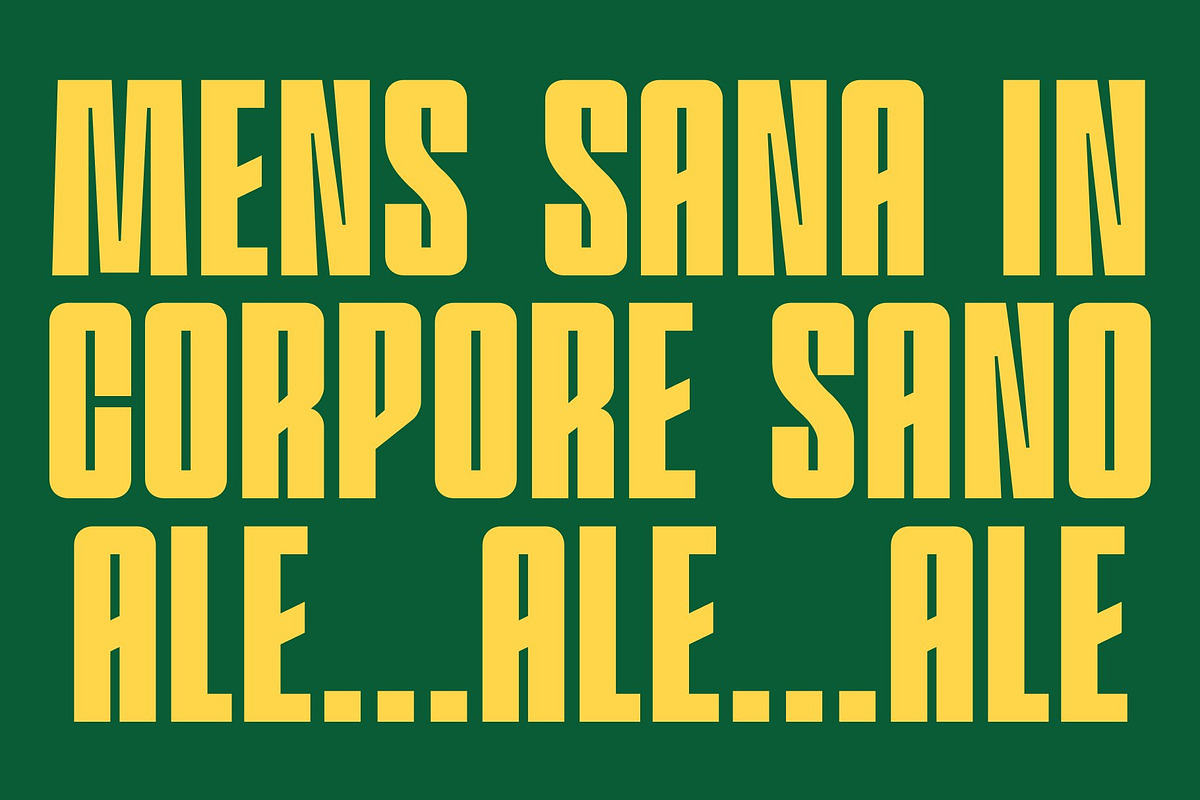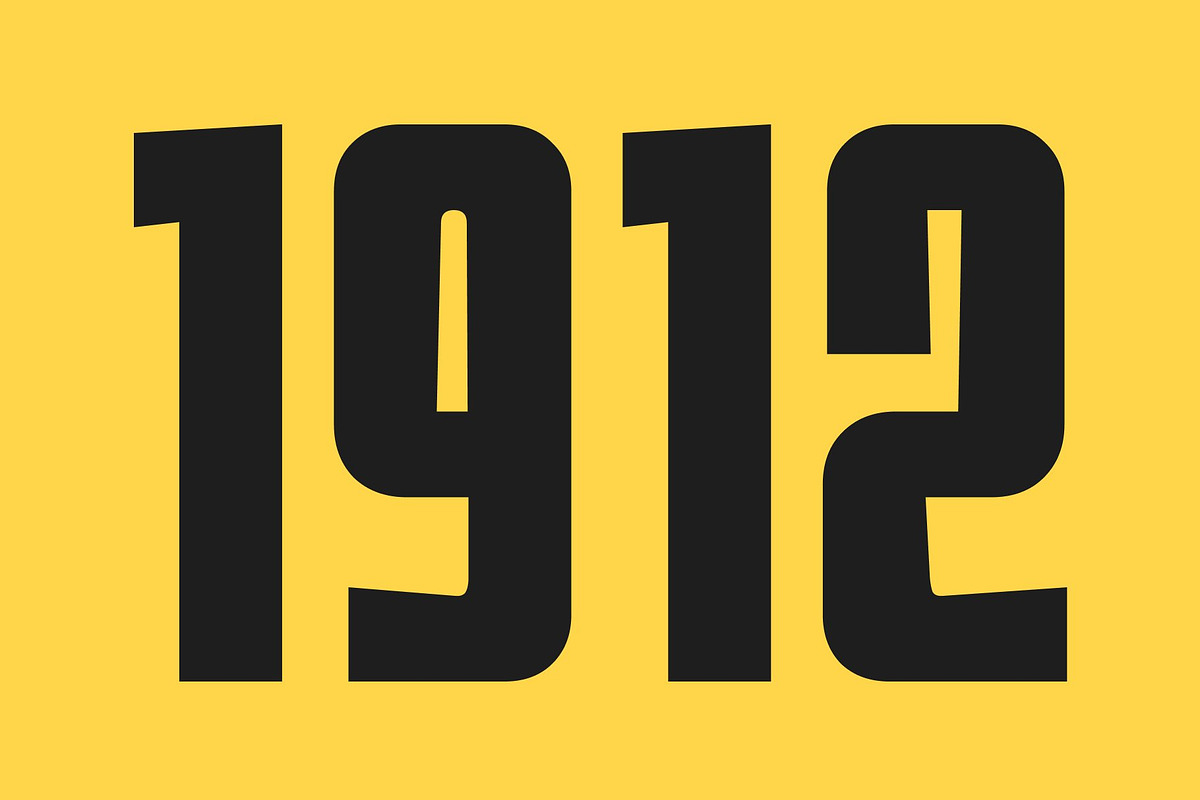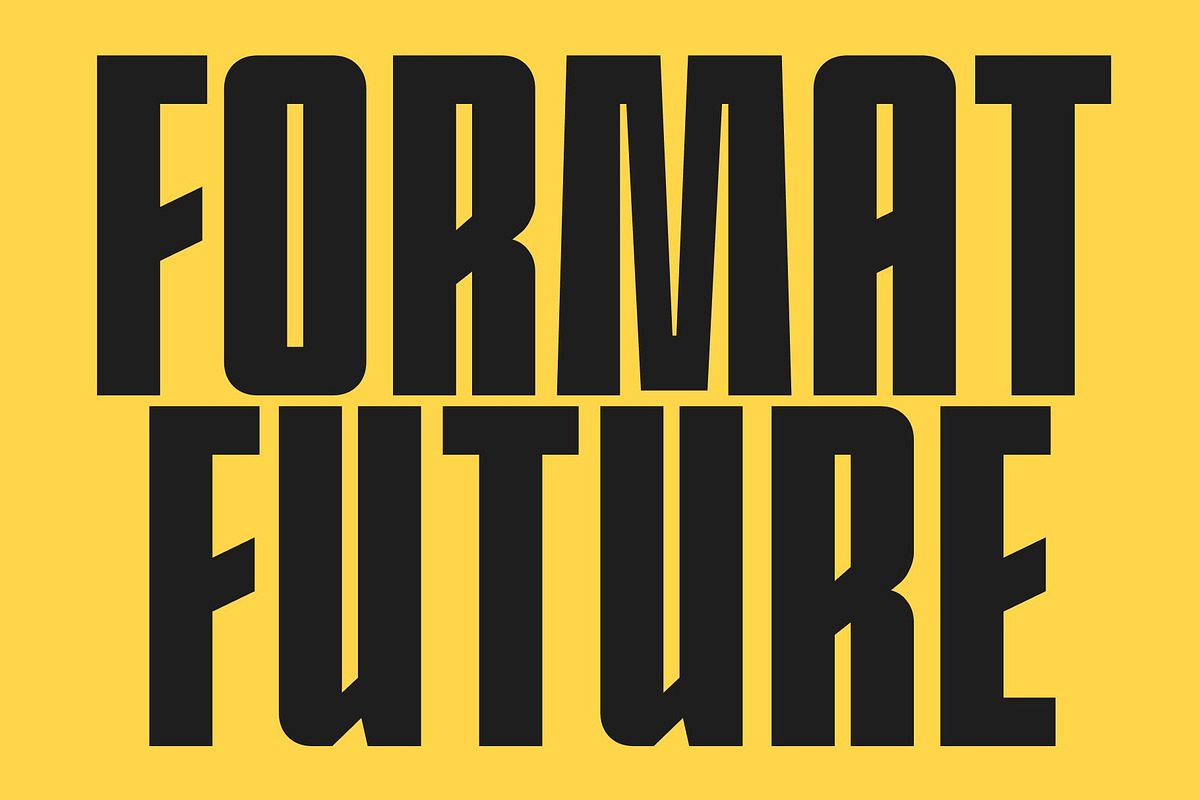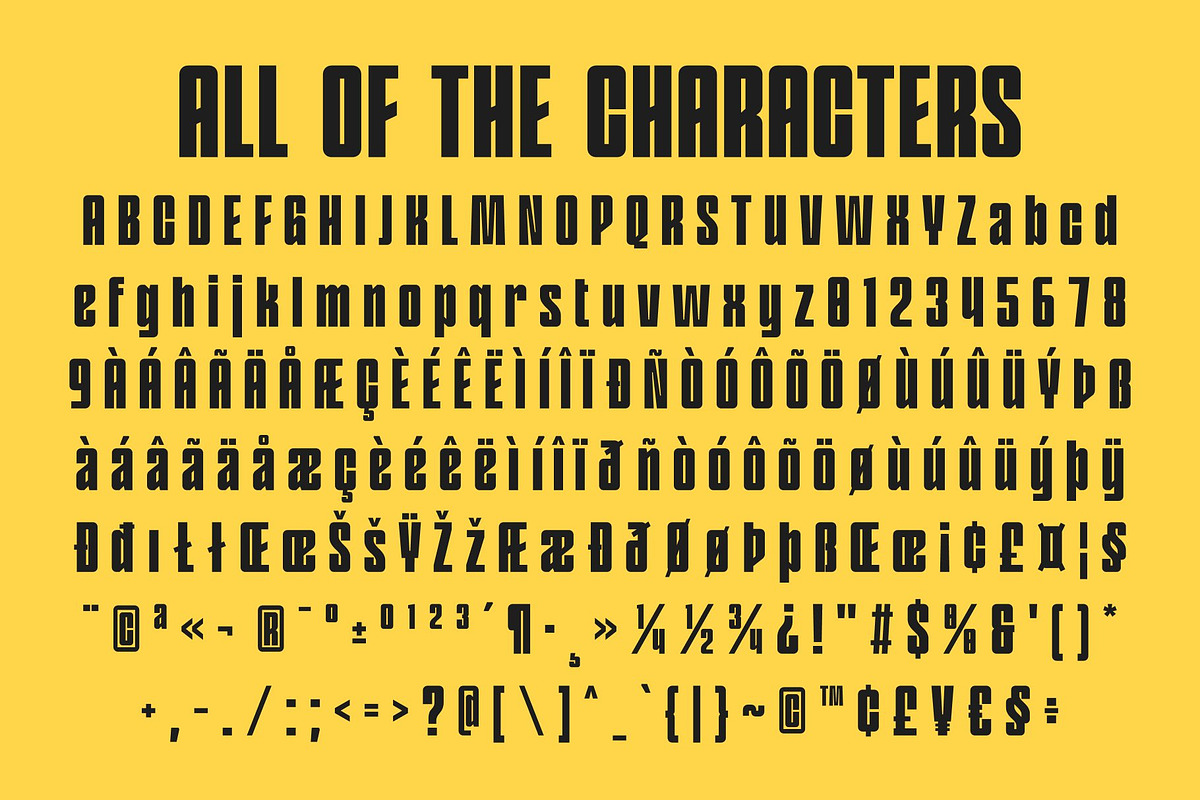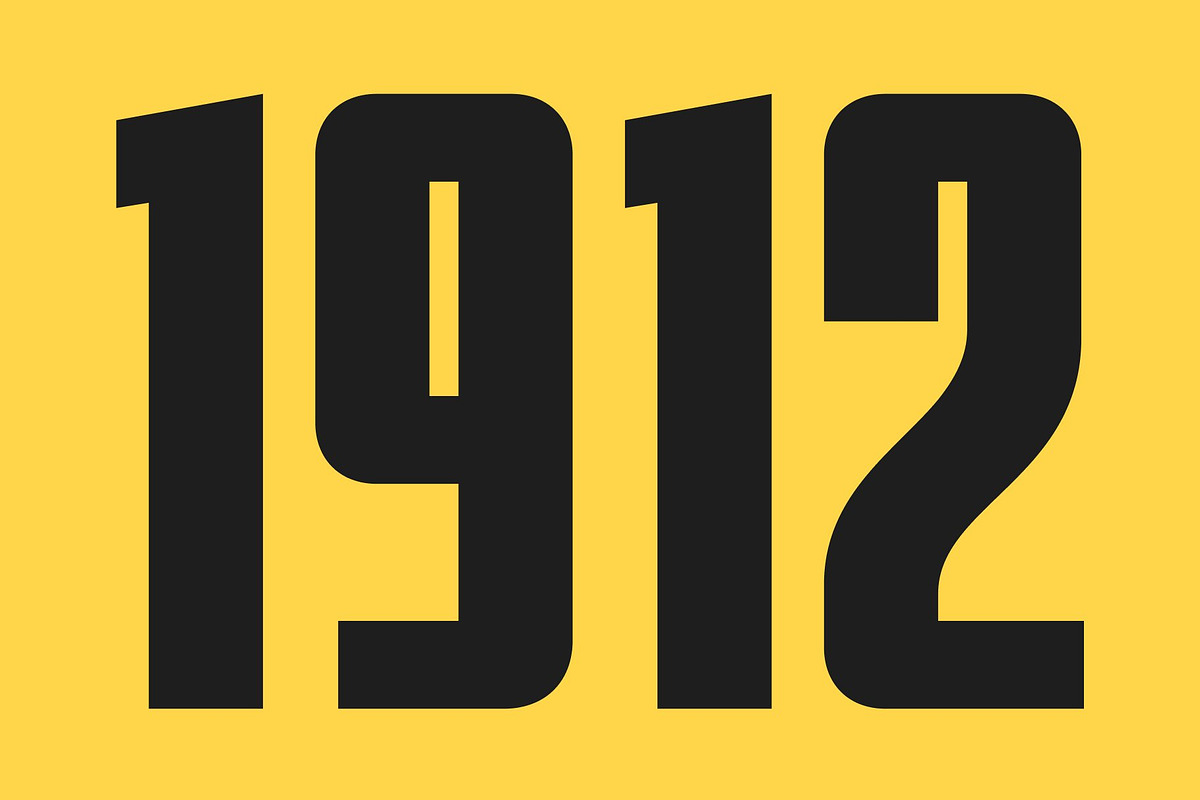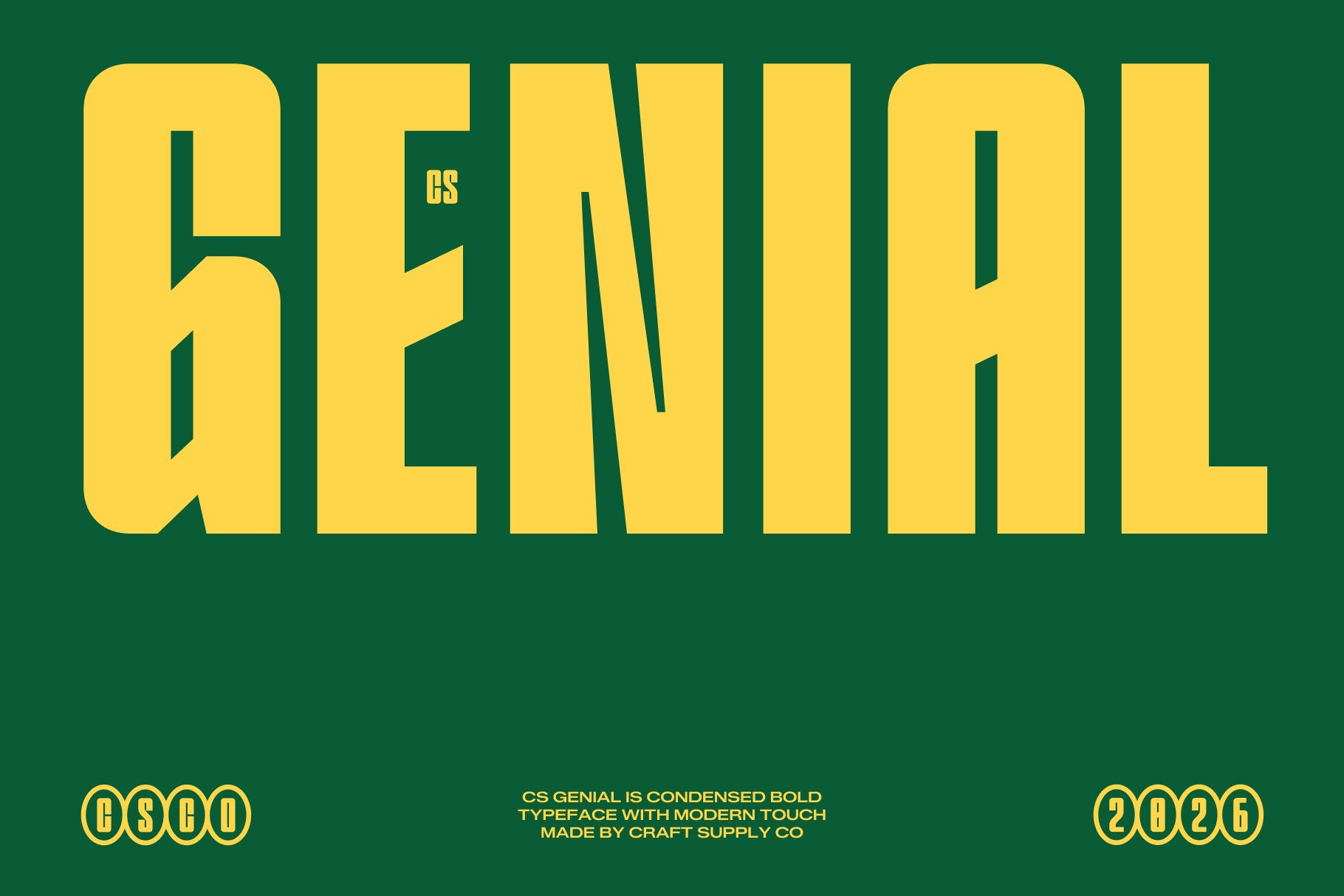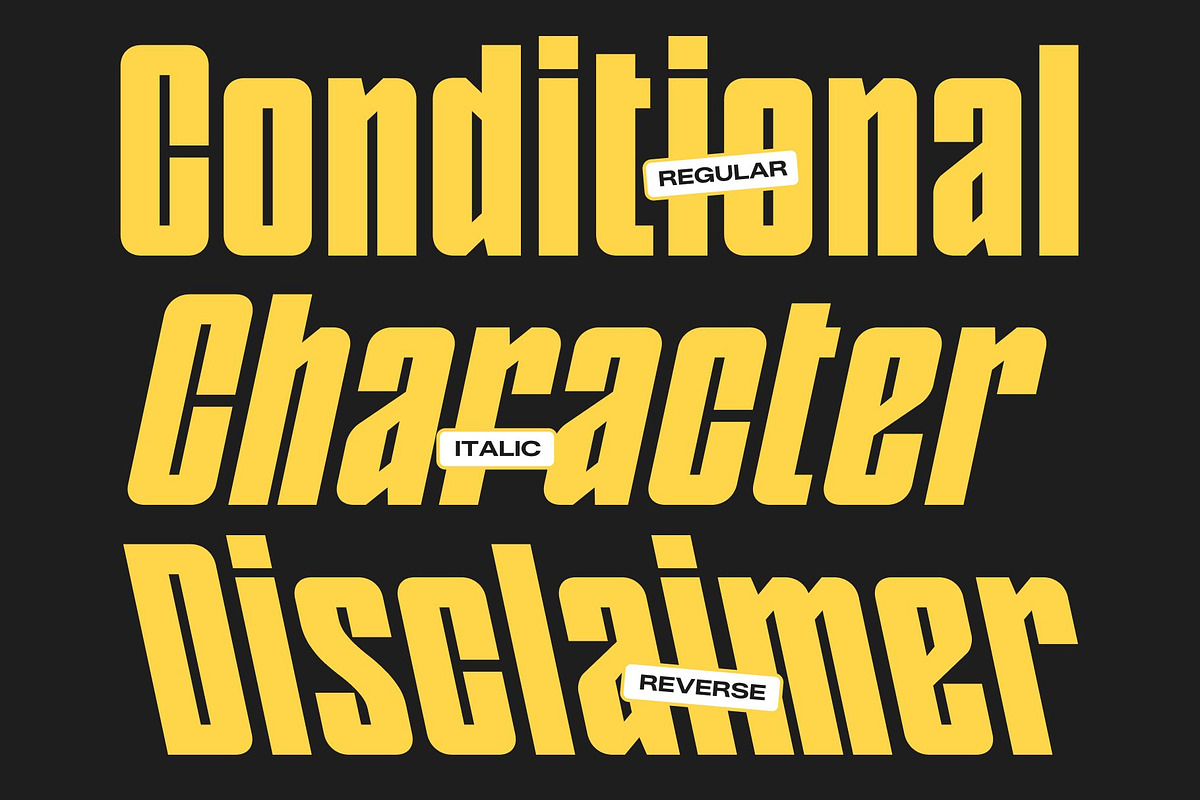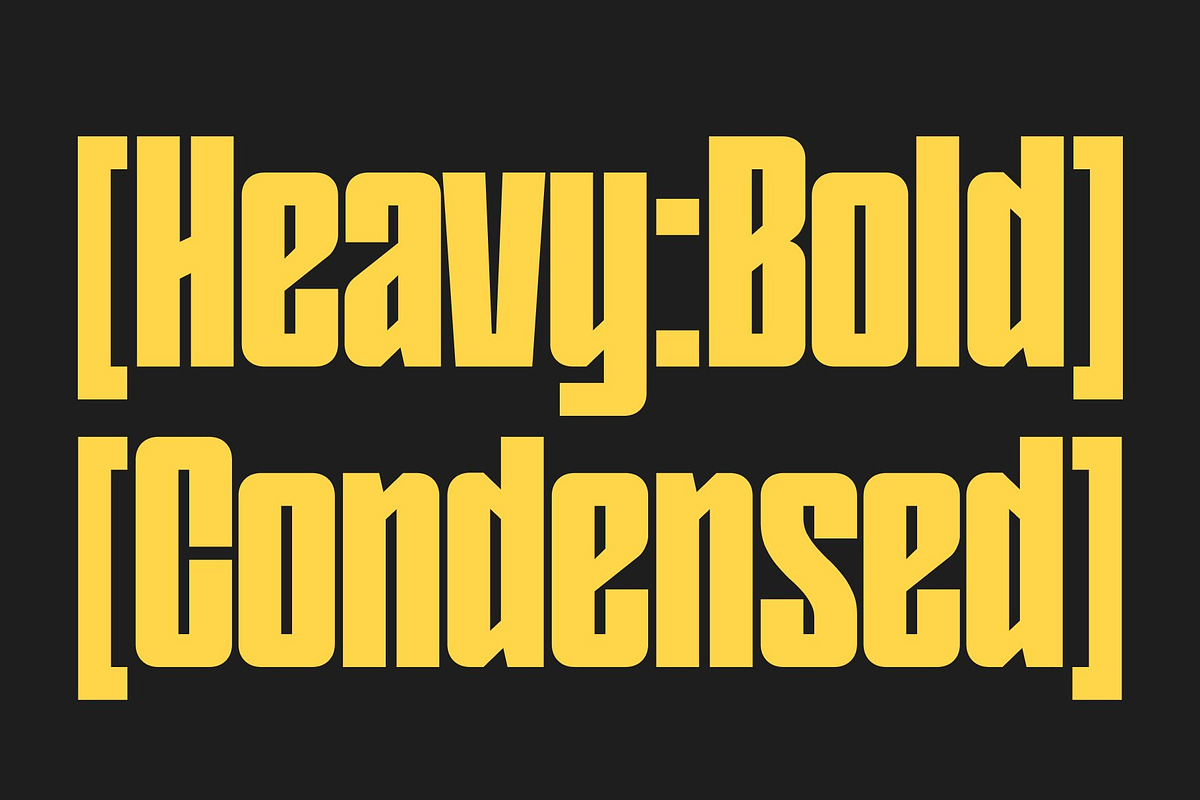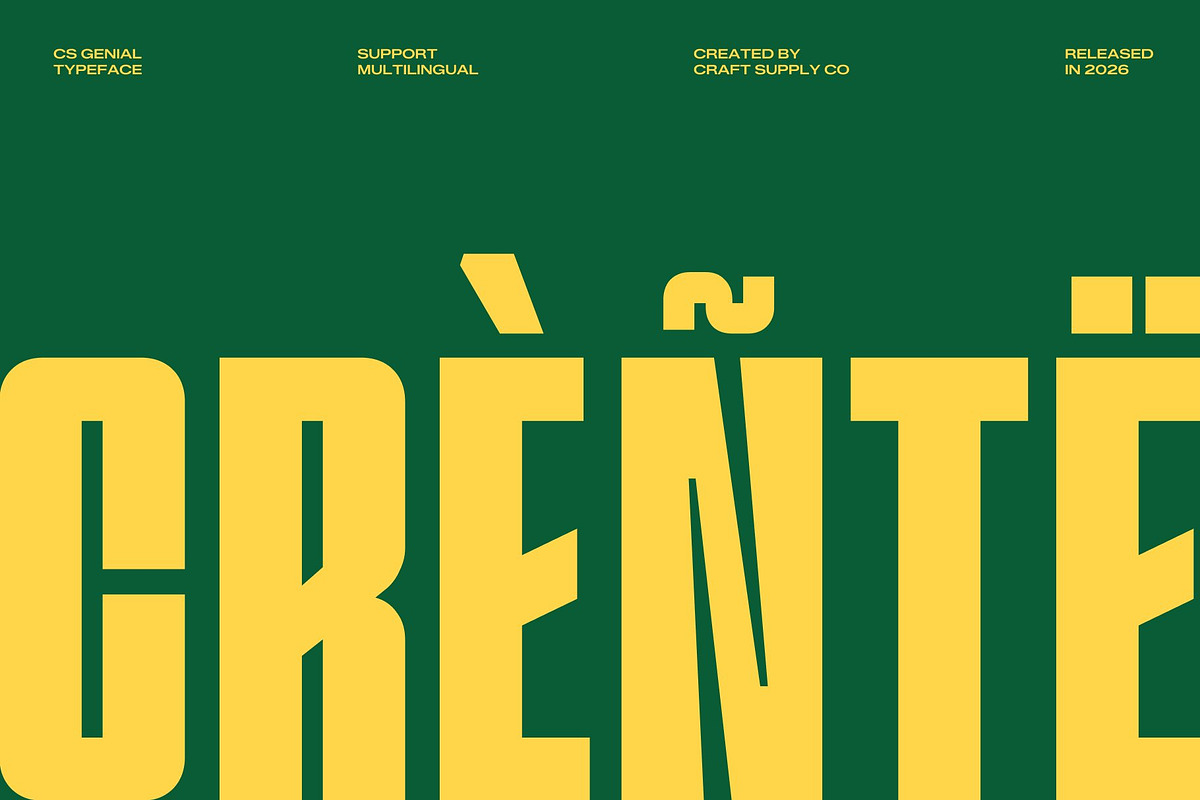
CS Genial – Condensed Font
CS Genial – Modern Condensed Display Font with Bold Presence
Modern Condensed Display Font with Strong Visual Impact This is a modern condensed display font crafted to deliver bold visual impact in limited space. With its confident structure and contemporary personality, this typeface transforms headlines into striking visual statements. It is designed for creators who need typography that feels powerful, efficient, and unmistakably modern.
Optimized for Tight Layouts and Bold Headlines The condensed proportions allow more words to fit into narrow spaces while preserving clarity and balance. Each letterform is carefully engineered to appear tall, compact, and highly legible, ensuring your message remains strong even in dense layouts. This efficiency makes this font perfect for posters, banners, and attention-grabbing titles.
Bold Forms with Clean Readability This font balances strong strokes with clean geometry, creating a look that feels both impactful and refined. The bold structure enhances visibility at large sizes while maintaining a smooth reading experience. This harmony between strength and clarity gives the font a confident and versatile personality.
Perfect for Branding, Posters, and Creative Displays From branding and advertising to editorial headlines and digital graphics, this font adapts effortlessly to a wide range of modern projects. Its combination of readability, compact efficiency, and bold display character ensures your typography stands out with confidence and contemporary style.